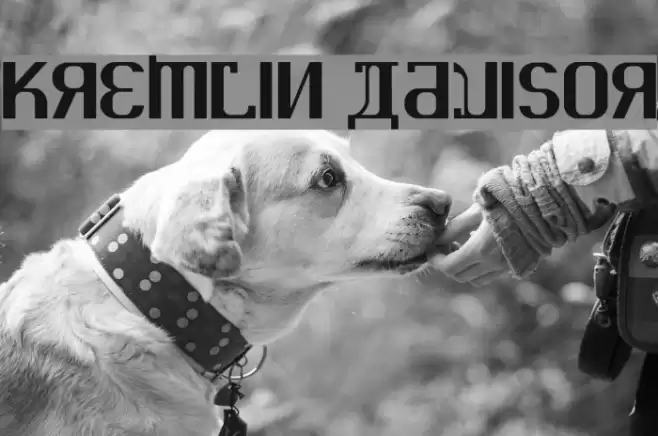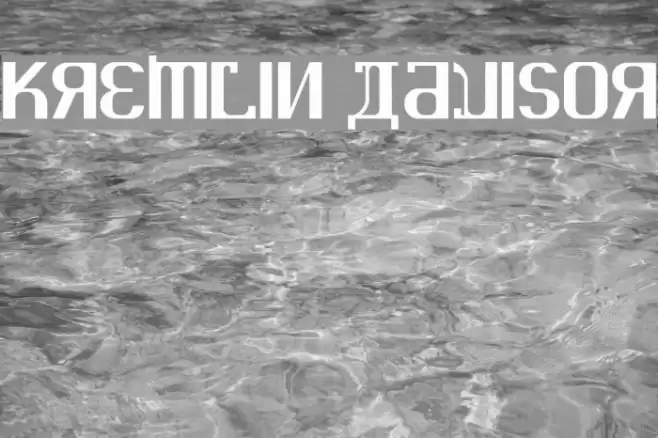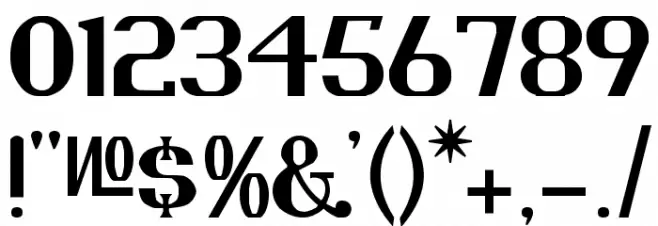
KREMLIN ADVISOR Font
KREMLIN ADVISOR Description
This font features a bold and striking design with a unique blend of modern and traditional elements. The uppercase letters exhibit a strong geometric structure with sharp angles and a distinct, almost Cyrillic-inspired flair. The lowercase letters maintain a consistent style, with some characters incorporating elegant curves and swashes, adding a touch of sophistication. The numerals are bold and easily readable, complementing the overall aesthetic. Special characters are designed with the same attention to detail, ensuring a cohesive look across all glyphs. The font's boldness and unique style make it suitable for impactful designs.
A bold, geometric font with a modern yet traditional flair from Uncategorized fonts.